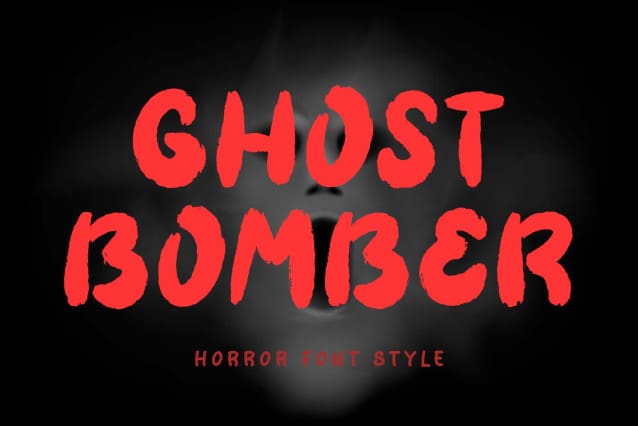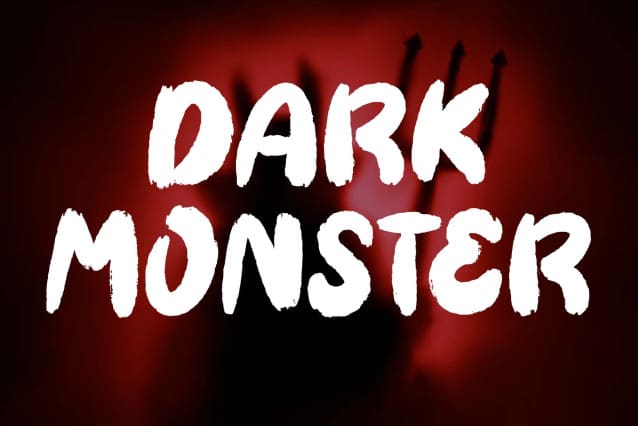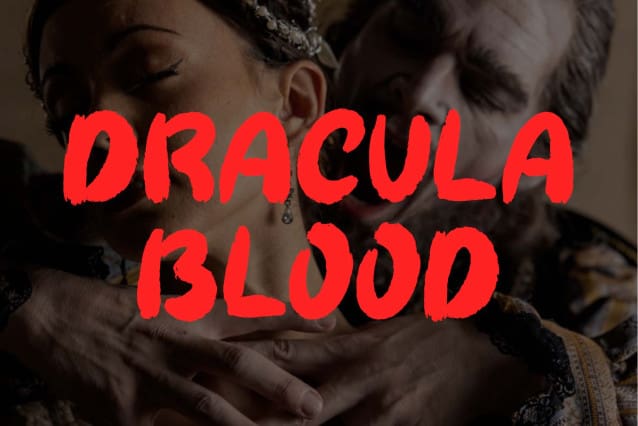
Ghost Bomber Font
Ghost Bomber Font is a unique and scary horror font. This font is equipped with uppercase, lowercase, numerals, punctuations and multilingual support. Very suitable for Halloween, horror film titles, comic books, metal concerts, banners, Christmas, branding, posters, prints, stickers and others.